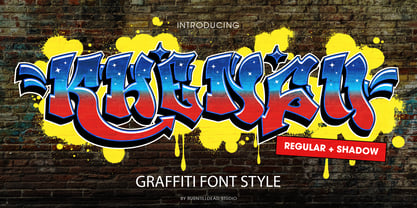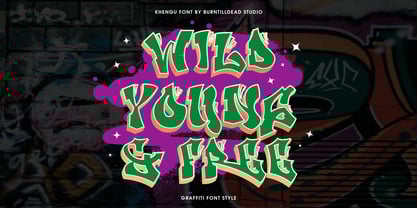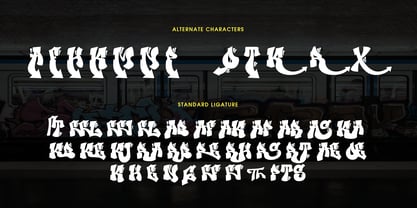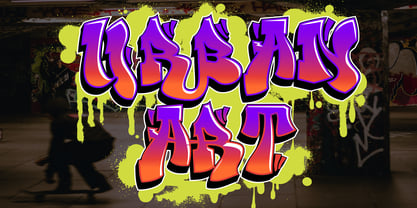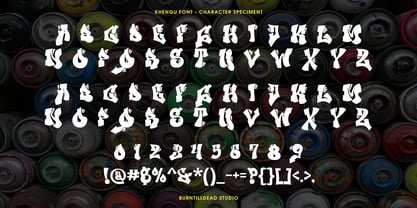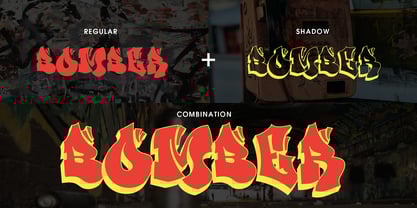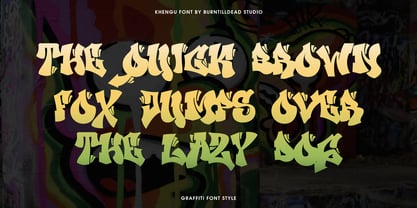
Khengu
by Burntilldead
The Khengu Font Family was designed by Eric Kurniawan and published by Burntilldead. Khengu contains 2 styles and family package options.
Proudly present, a bold and dynamic graffiti style font that brings urban energy, Khengu! This font offer two styles: regular and shadow. Khengu also packed with alternates and standard ligatures, gives you flexibility to customize your text and create unique, expressive lettering combination for your design. Whether you're designing for posters, album covers, streetwear branding, or digital artwork, this font help you to create graffiti design easily while making them stand out and grab people’s attention.
Features:
• A - Z set (Uppercase & Lowercase)
• Number
• Punctuation
• Alternates
• Ligatures
• Multilingual